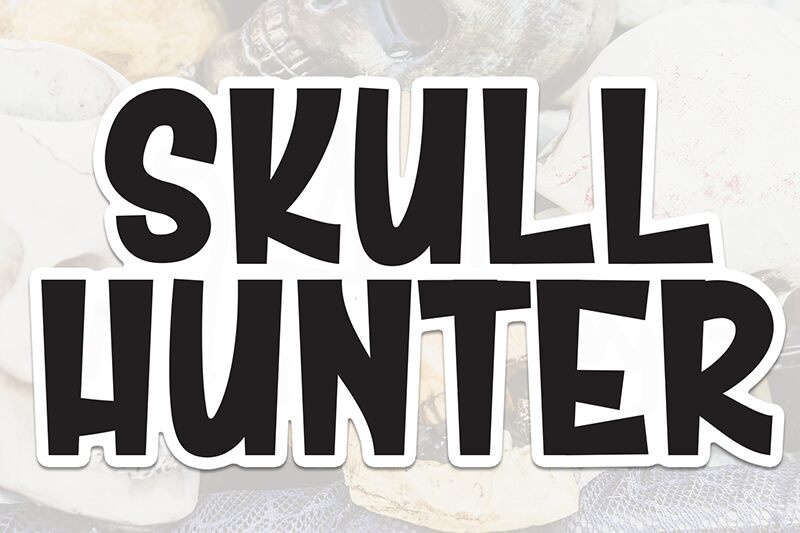
Skull Hunter font is a free cartoon display font from Scratchones with a vintage-inspired rugged, adventurous style. Its condensed bold presence conveys impactful messages in large lettering with both decorative and serious appeal. Recognizable characters stand out in exciting text that combines modern visual aspects with distinct traces of timeless retro design.